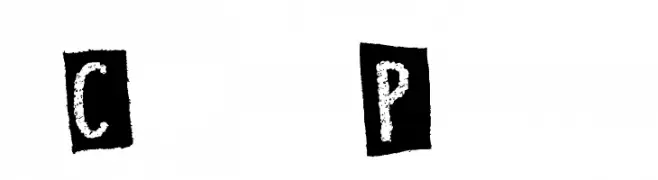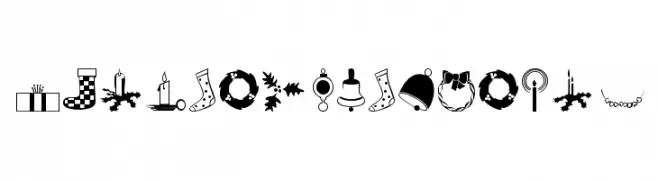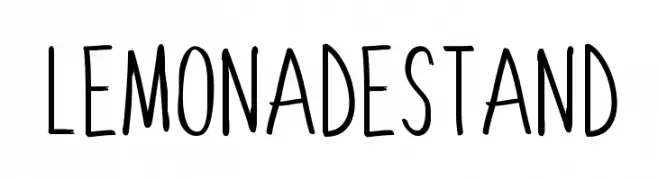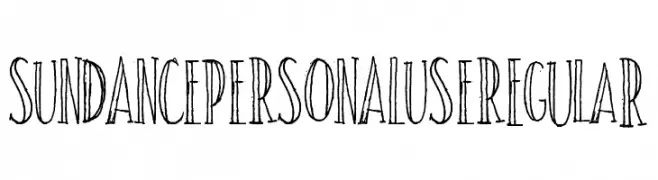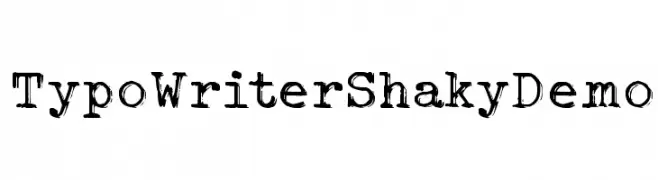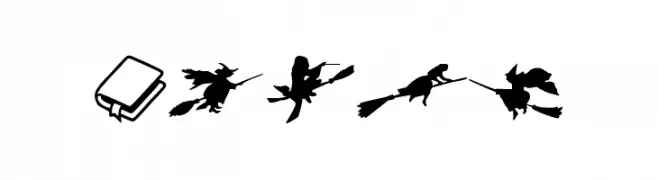
A playful, hand-drawn font with tall, narrow letters and a whimsical style.
A vintage, typewriter-inspired font with a distressed, shaky appearance.
A festive collection of holiday-themed dingbats featuring ornaments, gifts, and more.
A hand-drawn, sketch-like font with tall, narrow characters and a rustic feel.
A playful, collage-style font with a hand-drawn, chalk-like texture.
A bold, decorative floral dingbat set with playful, abstract flower motifs.
A decorative font featuring intricate round masks with bold, contrasting lines.
Whimsical witch and magic-themed decorative icon font.